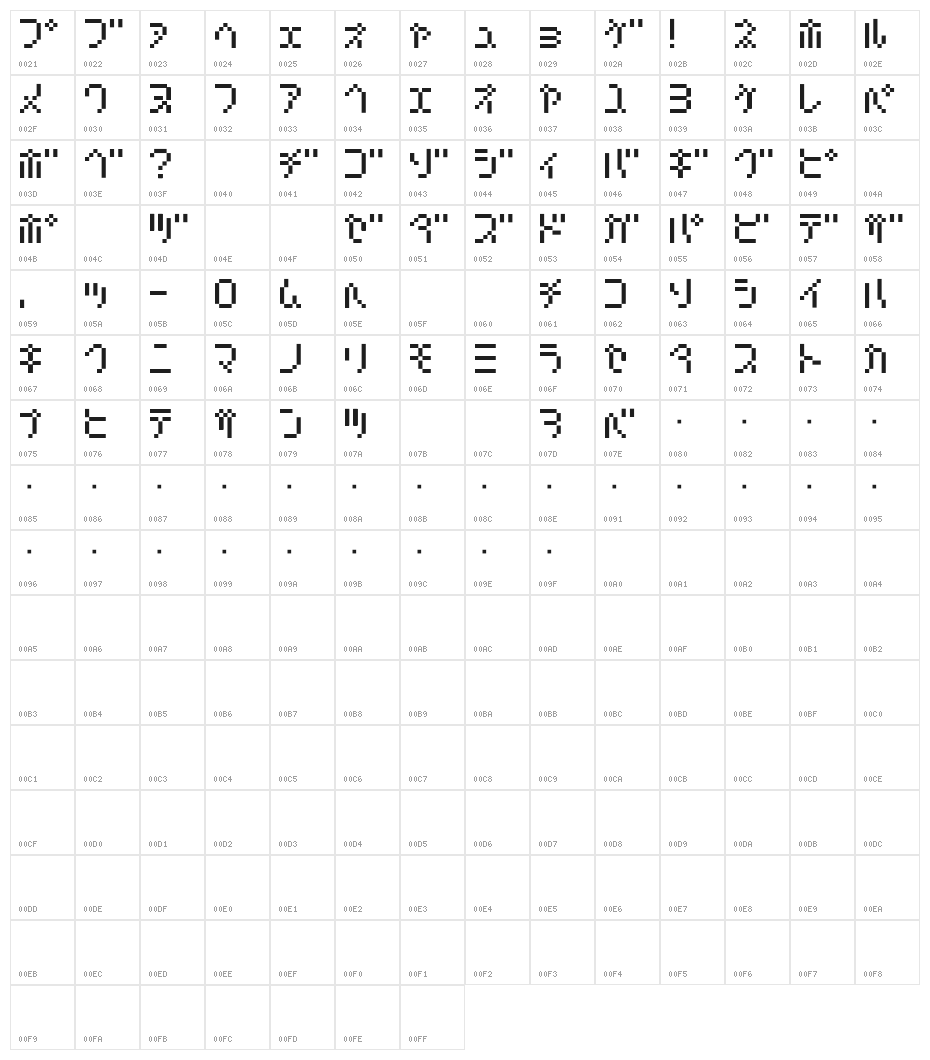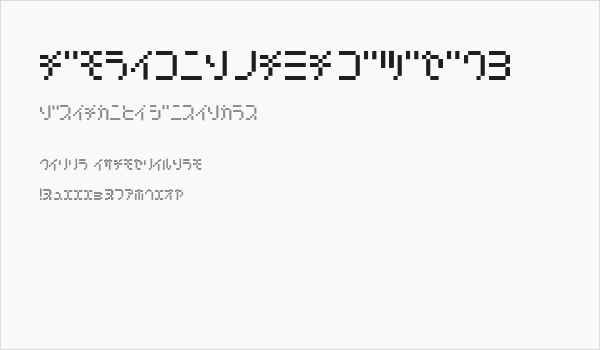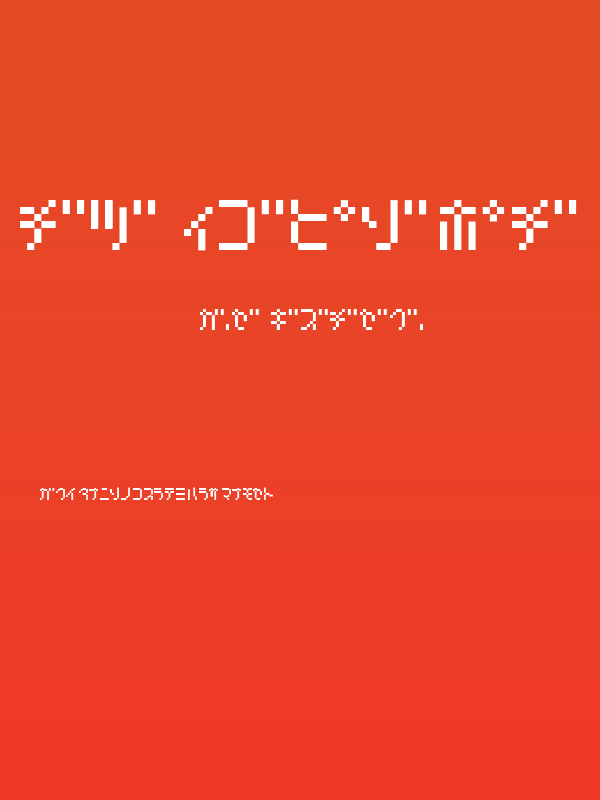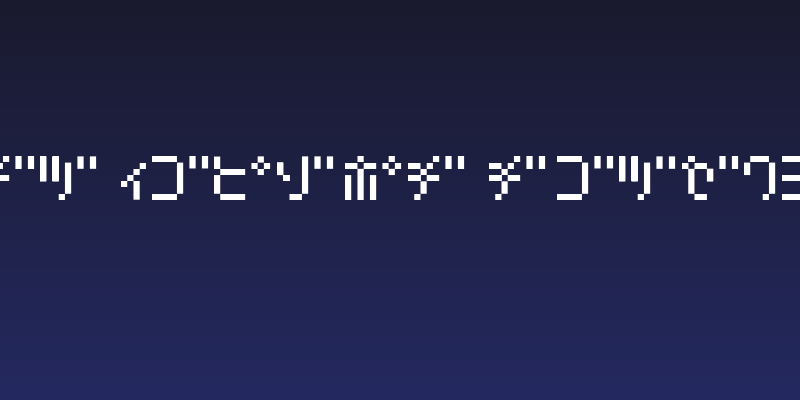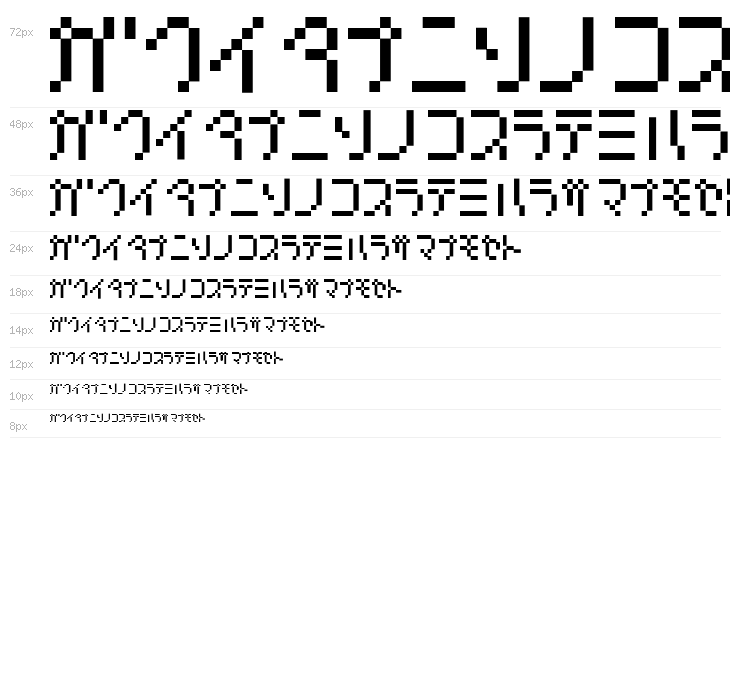
Amoebic kana BMP09 Font
Amoebic kana BMP09 Description
This font features a pixelated, blocky style reminiscent of early digital displays or retro video games. Each character is composed of small square blocks, creating a distinct, grid-like appearance. The uniformity in the design gives it a monospaced feel, although it is not strictly monospaced. The characters are evenly spaced, maintaining a consistent rhythm across the text. This style is highly legible at larger sizes, making it suitable for display purposes. The font's geometric nature lends itself to a modern, digital aesthetic, while also evoking a sense of nostalgia for classic computing and gaming eras.
| Overall Style | Retro, Digital |
| Use Case | Headlines, Logos, Display text |
| Proposed Projects | Ideal for retro-themed designs, video game graphics, digital art, and tech-related branding. |